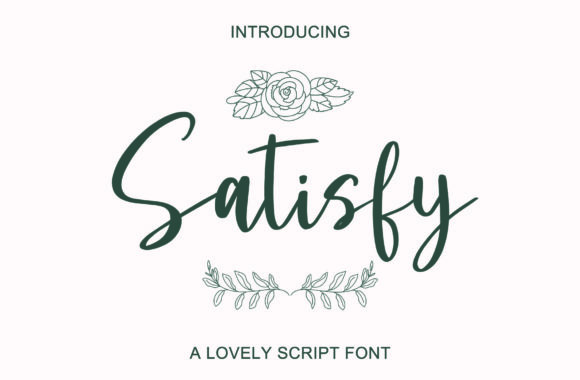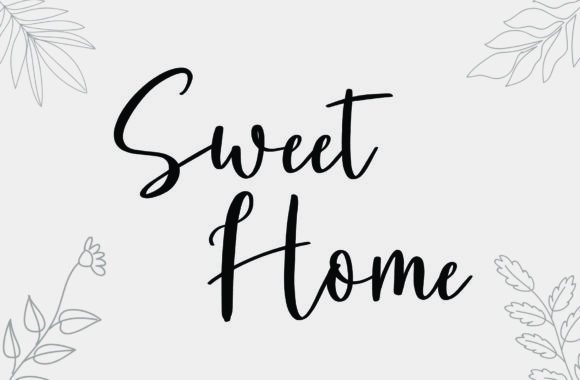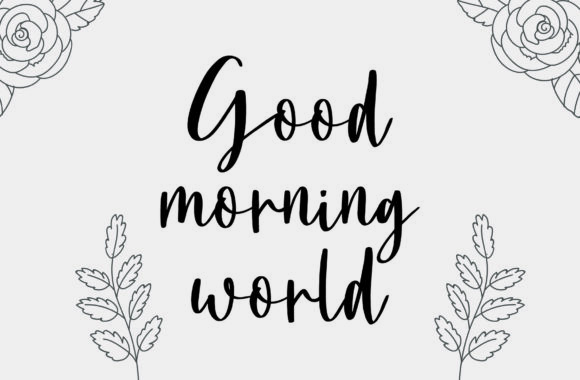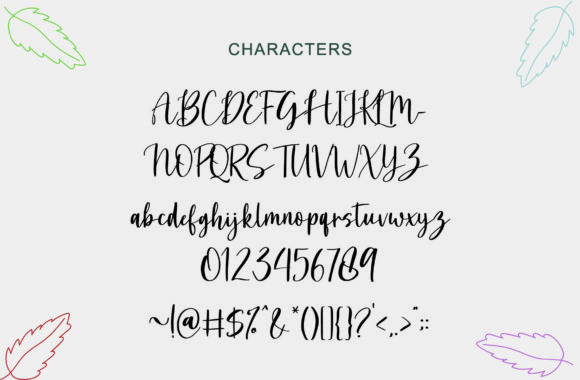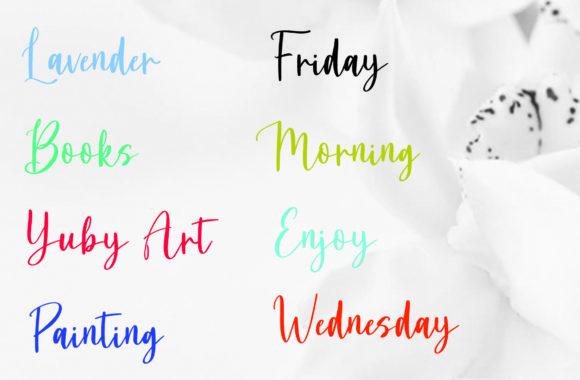
Satisfy Font
About Satisfy Font
Satisfy is a stylish and incredibly elegant script font. It looks stunning on wedding invitations, thank you cards, quotes, greeting cards, logos, business cards and every other design which needs a personalized touch.